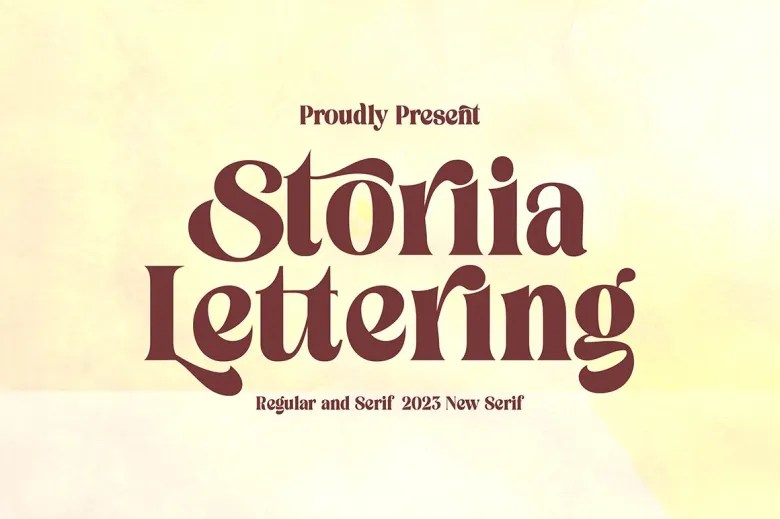
Storia Lettering Font
Storia Lettering Font is a striking serif typeface that combines elegance with readability, making it an excellent choice for a variety of design applications. Whether you’re creating editorial layouts, web content, posters, or fashion prints, Storia’s clean lines and sophisticated style will elevate your designs.
Key Features of Storia Lettering Font:
• Versatile Design: Storia is designed to shine as both a heading and body text. Its clean and stylish appearance ensures it looks great in various contexts, from web design and editorial work to magazine covers and T-shirt prints.
• Italic and Upright Styles: The font comes with both italic and upright styles, providing flexibility for different design needs. Whether you need emphasis or a more traditional look, Storia adapts effortlessly.
• Perfect for Print and Digital: Storia is ideal for high-impact headings and striking visuals in both print and digital media. Use it to make your editorial layouts stand out, or create attention-grabbing posters and web content.
• Elegant and Readable: With its well-crafted serifs and clean lines, Storia delivers a sophisticated look while maintaining readability. Its design ensures that your text will be both stylish and legible, making it perfect for high-profile projects.